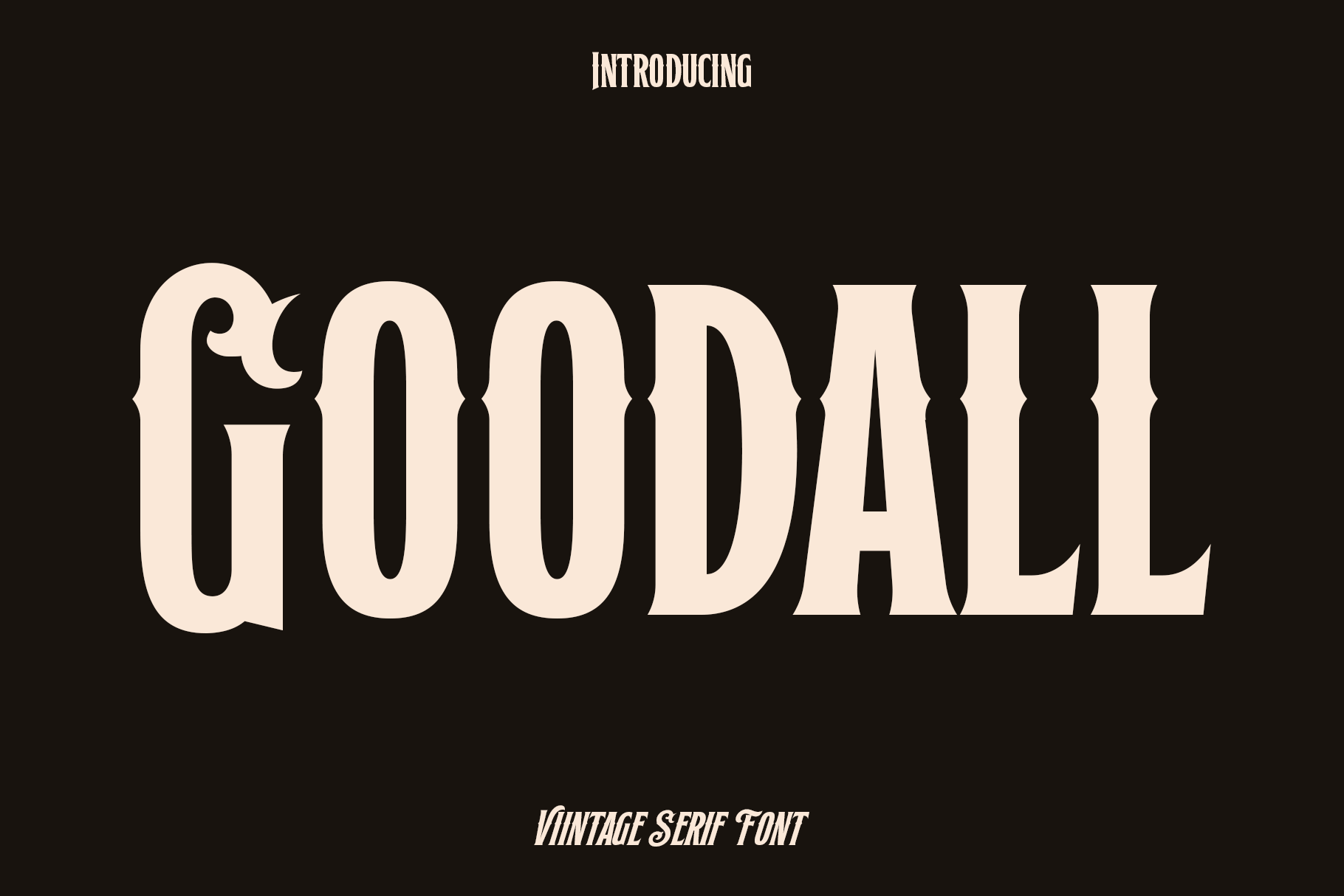
Goodall - Serif Display Font Duo
Goodall is a stylish display font duo designed to bring creativity, personality, and versatility into your design projects. Crafted with two complementary styles and filled with expressive alternatives, Goodall offers endless possibilities for creating typography that feels modern, artistic, and visually captivating. Inspired by contemporary branding and creative editorial trends, this font duo blends bold character with elegant flexibility, making every design feel unique and memorable.
Whether you are working on branding, product packaging, invitations, quotes, t shirts, labels, posters, logos, or social media graphics, Goodall adapts beautifully across a wide range of creative applications. Its stylish letterforms and alternative characters allow designers to build custom typography compositions that stand out with originality and charm. The combination of the two styles gives your work greater depth and creative freedom, helping you achieve both playful and sophisticated visual results.
Goodall was created for designers who want typography that feels expressive, versatile, and modern. Its balanced structure maintains readability while adding artistic flair that instantly enhances the overall design atmosphere. From elegant branding to bold promotional visuals, this font duo transforms ordinary text into a powerful creative element.
With its modern aesthetic and rich stylistic options, Goodall is the perfect choice for creators looking to elevate their typography collection with a font that is both functional and visually inspiring.
Goodall Font Duo Features:
• Two font styles included
• Rich alternative characters
• Uppercase and lowercase characters
• Numerals and punctuation
• Stylish and creative display typography
• Perfect for branding, invitations, posters, packaging, and logos
• Modern and versatile design aesthetic
• Ideal for both print and digital projects